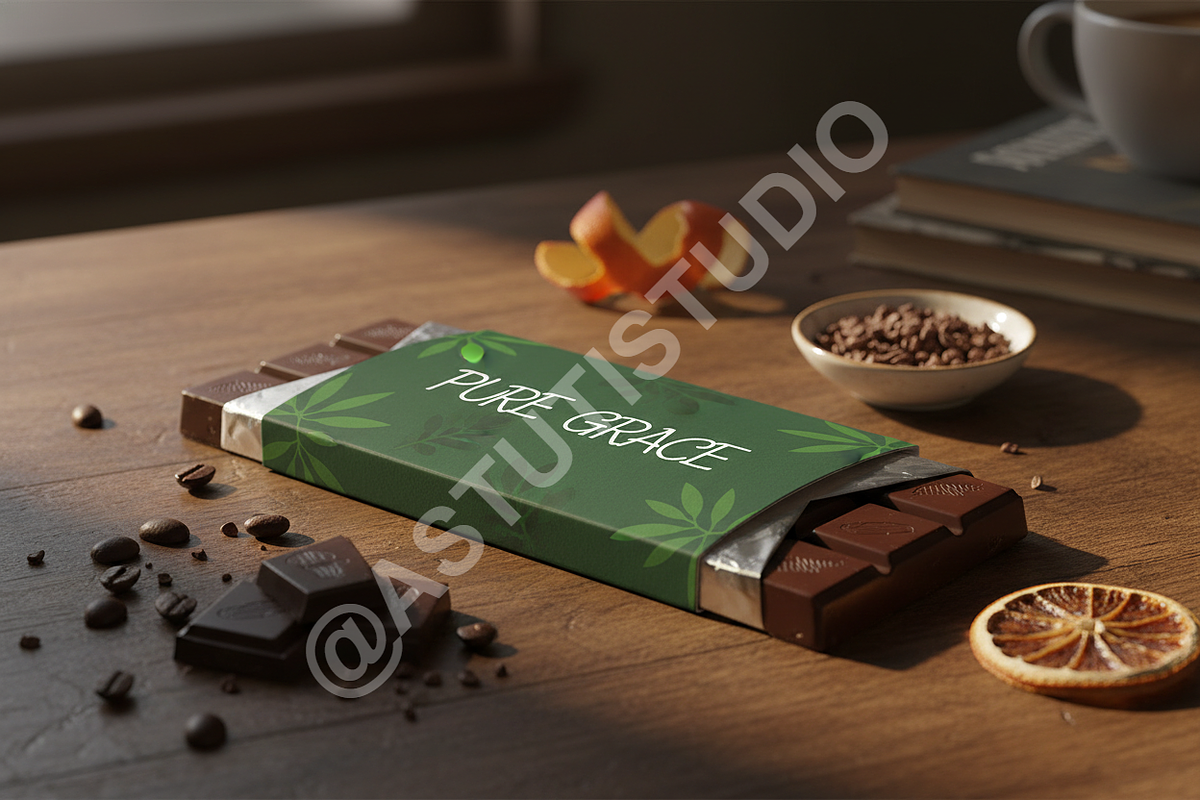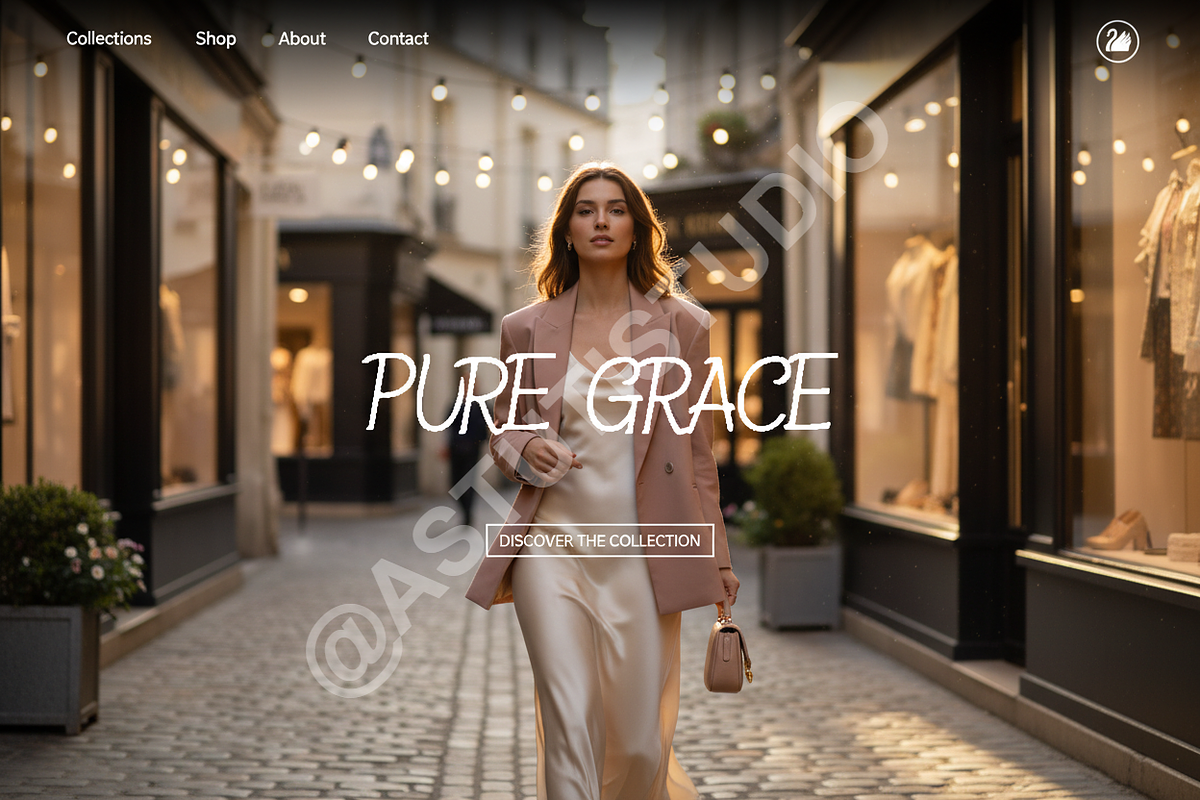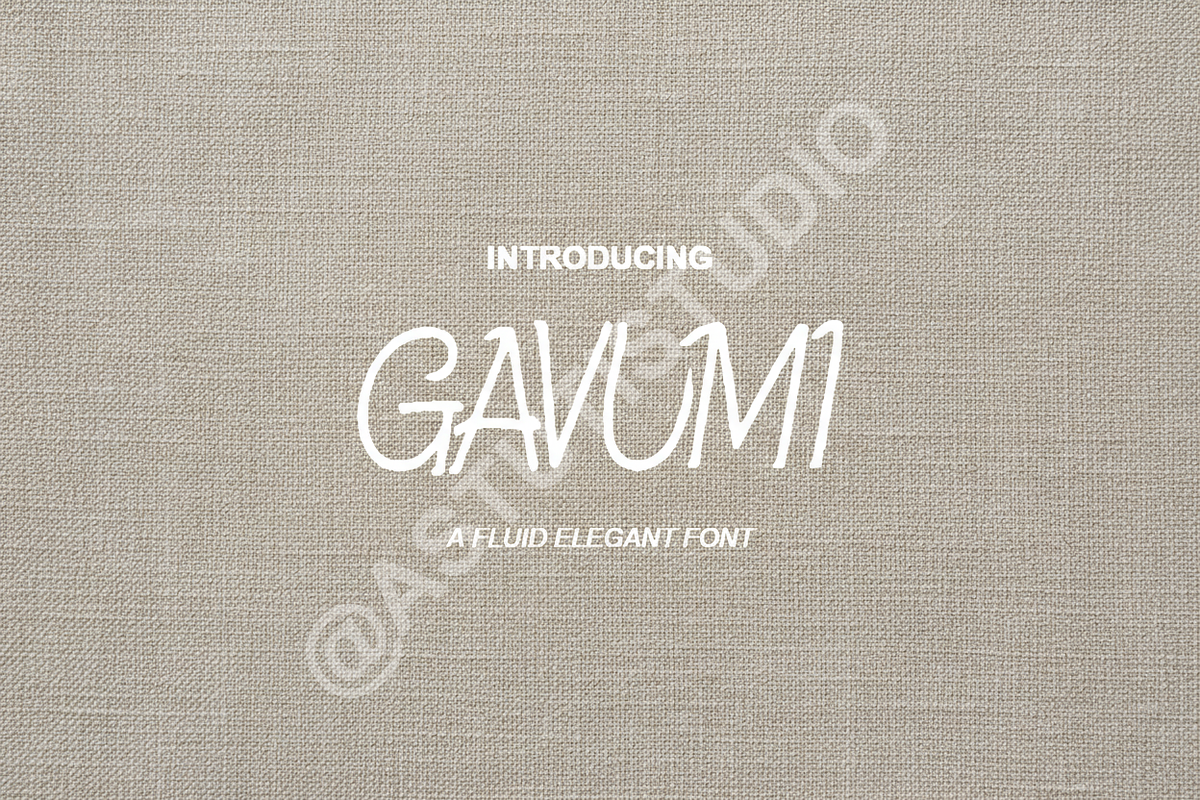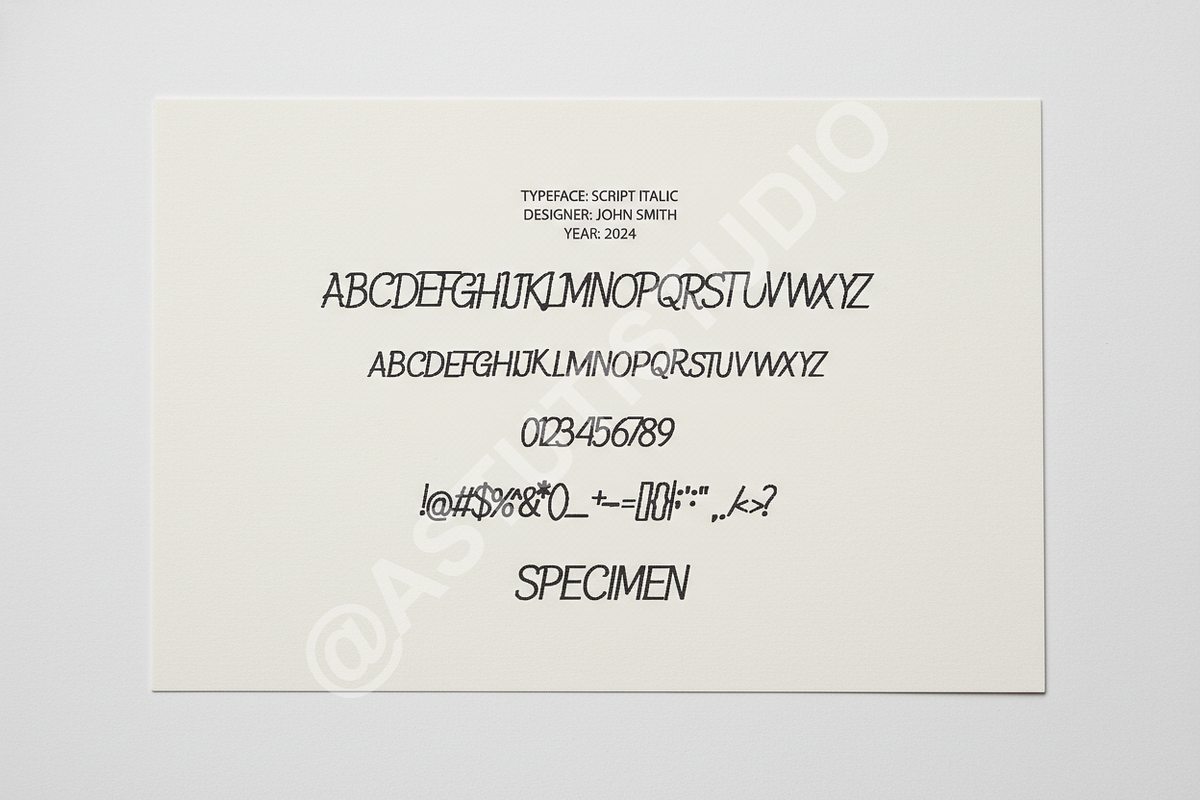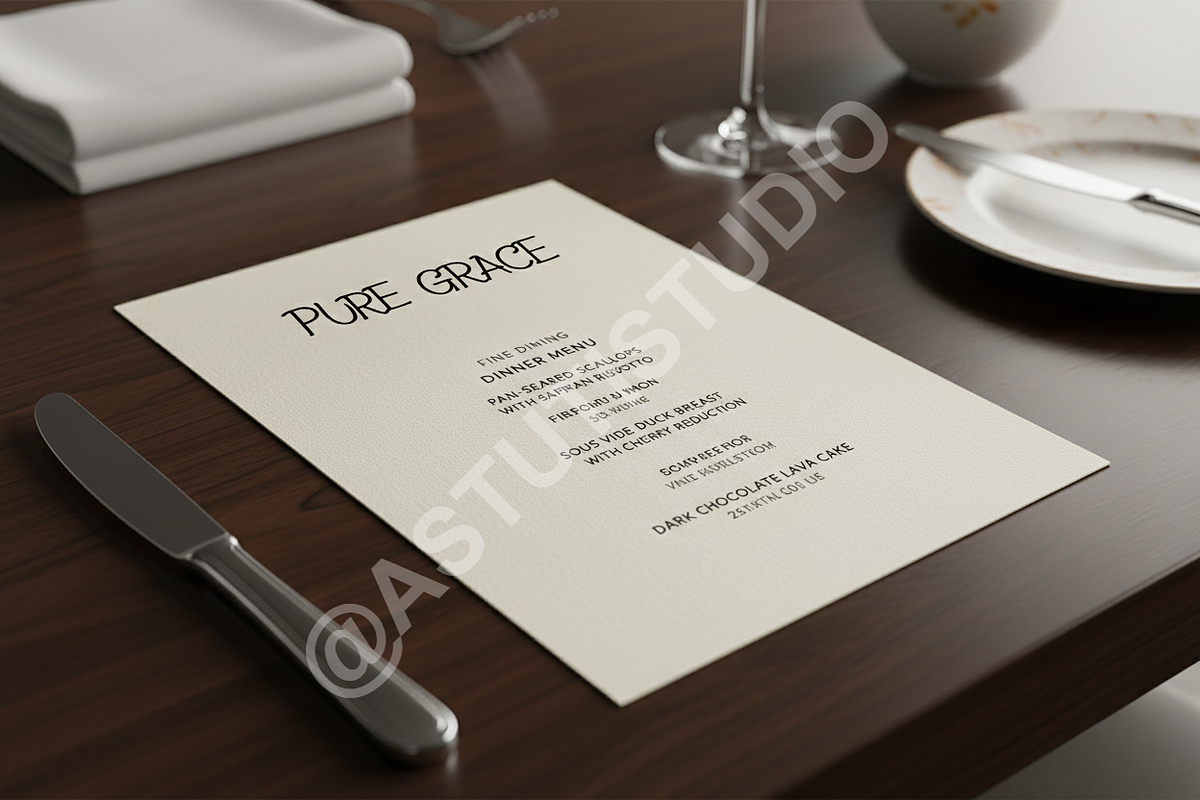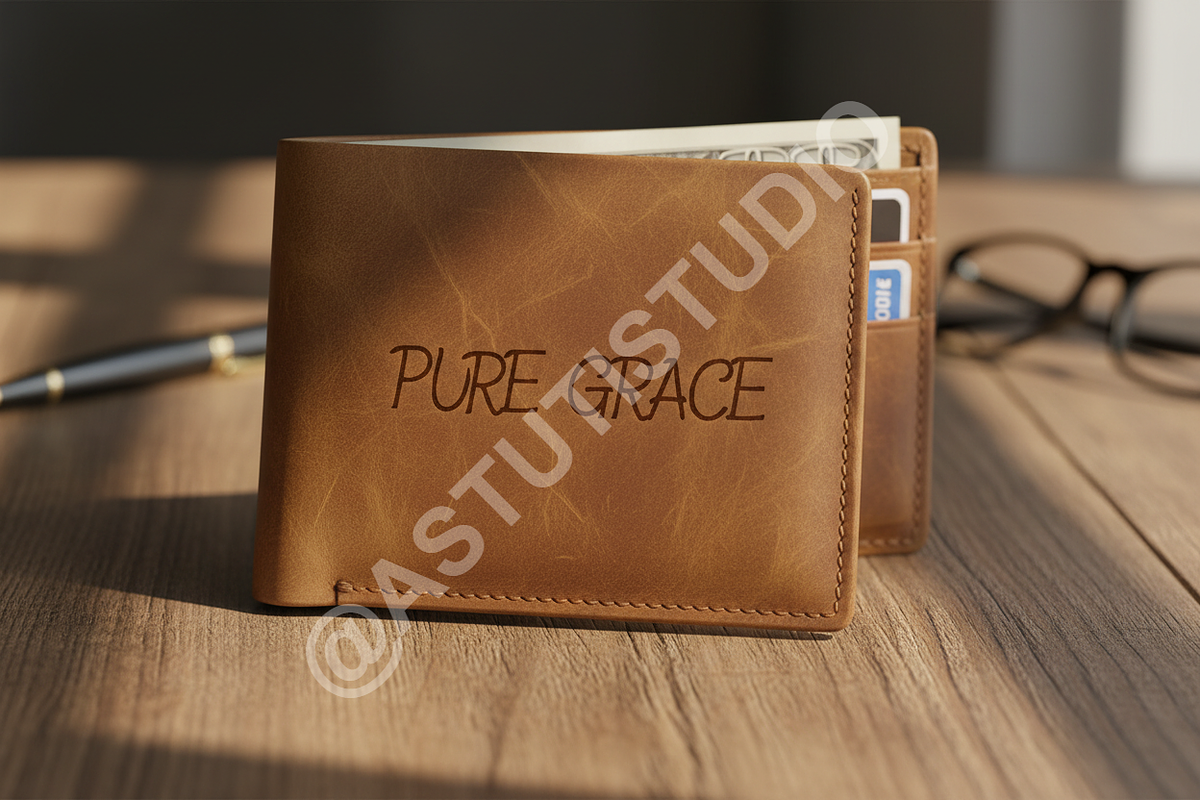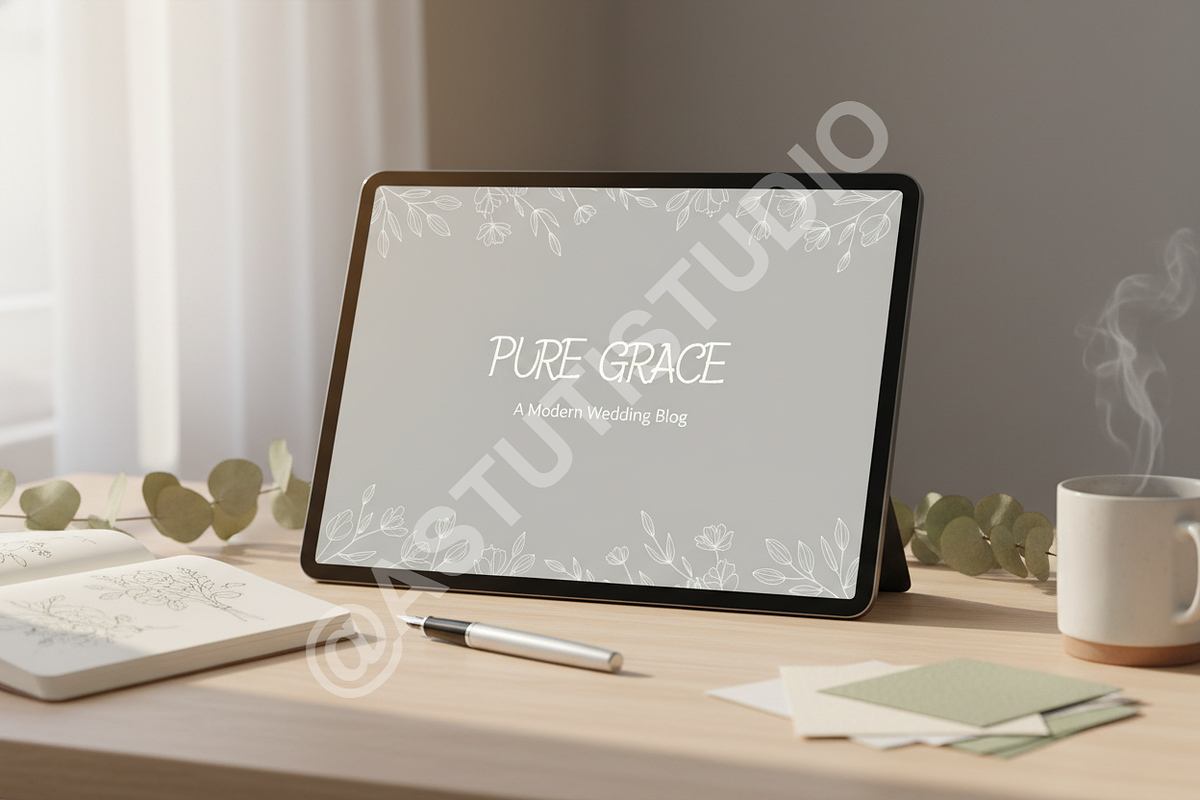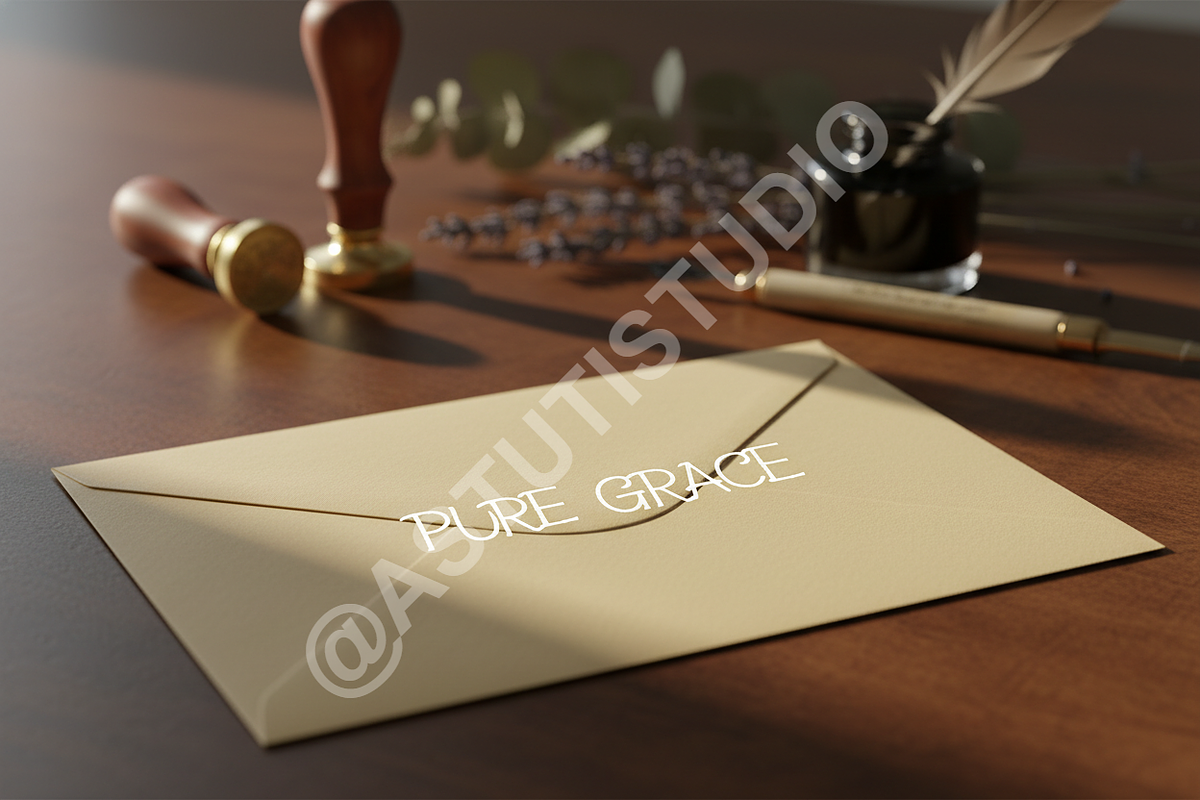
Gavumi | Luxury Modern High-Contrast
Gavumi is a sophisticated display serif typeface crafted for the discerning designer. Fusing timeless elegance with contemporary structure, Gavumi features high contrast strokes and beautifully refined serifs, making it the definitive choice for projects demanding prestige and clarity. It perfectly captures the essence of exclusivity, making it indispensable for luxury branding, high-fashion editorial layouts, and impactful social media campaigns.
--- Key Features ---
- High-Contrast Design: Adds immediate drama and luxury to headlines and mastheads.
- Extensive Latin Character Set: Comprehensive multilingual support for global projects.
- OpenType Features: Includes standard and discretionary ligatures, plus stylistic alternates for true typographic customization.
- Optimal Readability: Designed for both large display usage and comfortable editorial body text.
- Ideal for: High-end logo design, magazine covers, premium packaging, and elegant web headers.
- Full set of Punctuation, Numerals, and Diacritics.